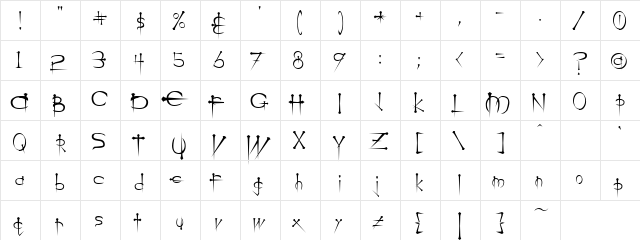
Manikchand Regular Font Preview
Manikchand Regular
Design Context for Manikchand Typeface
Manikchand brings a calligraphic fluidity to the page — its connecting strokes and expressive curves give it an unmistakably human quality.
Font Pairing: Combine Manikchand with a simple geometric sans for maximum contrast — the tension between flowing curves and clean structure is a classic typographic pairing.
Pro Tip: Pair Manikchand with a clean sans-serif for supporting text. The contrast between fluid script and geometric structure creates an elegant typographic hierarchy.